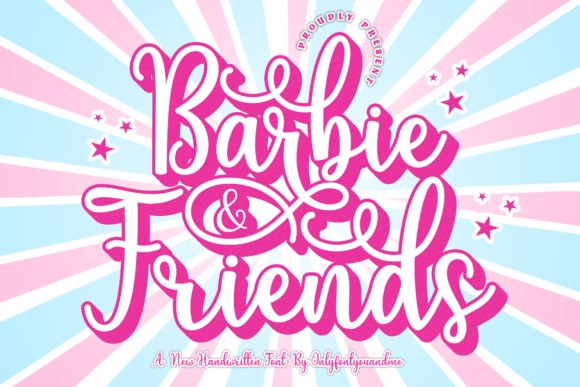
Introducing Barbie and Friends Font, the perfect choice for adding a touch of charm and elegance to your projects! This adorable handwritten font is designed with utmost creativity and love by onlyfontyouandme, ensuring that every stroke brings a sense of joy and happiness.
With a delightful script font family, Barbie and Friends exude a playfulness that is simply irresistible. The letters dance on the page with a varying baseline, creating a unique and captivating aesthetic. Whether you're designing a birthday card, crafting stickers, or creating wedding invitations, this font will bring your creations to life.
One of the standout features of Barbie and Friends Font is its smooth line. Every curve and loop is flawlessly crafted, adding a sense of sophistication and refinement to your designs. The smoothness of this font will make your text flow effortlessly, creating a seamless reading experience for your audience.
This font is the perfect companion for all your creative endeavors. Its versatility knows no bounds, making it suitable for a wide range of purposes. From t-shirts to letterheads, from posters to social media graphics, Barbie and Friends Font will elevate your designs and make them stand out from the crowd.
Captivate your audience with the cuteness overload of Barbie and Friends Font. Its charming and endearing style will instantly grab attention and evoke emotions of joy and warmth. It's like a warm hug in the form of typography, creating a connection with your audience and leaving a lasting impression.
Imagine the smiles and exclamations of delight when your loved ones receive a birthday card adorned with this font. The playful and cheerful nature of Barbie and Friends Font will bring a sense of celebration and happiness to any occasion.